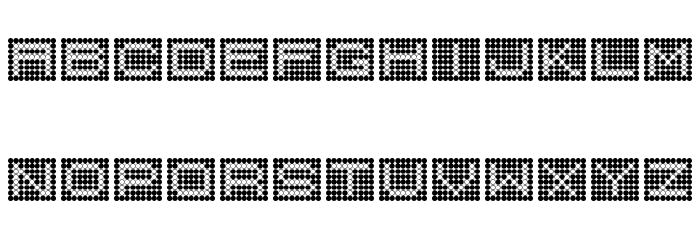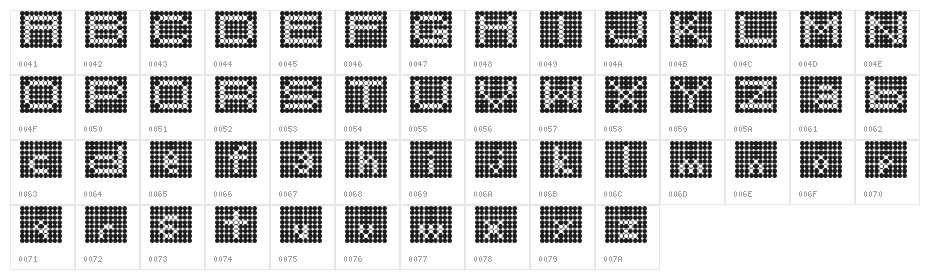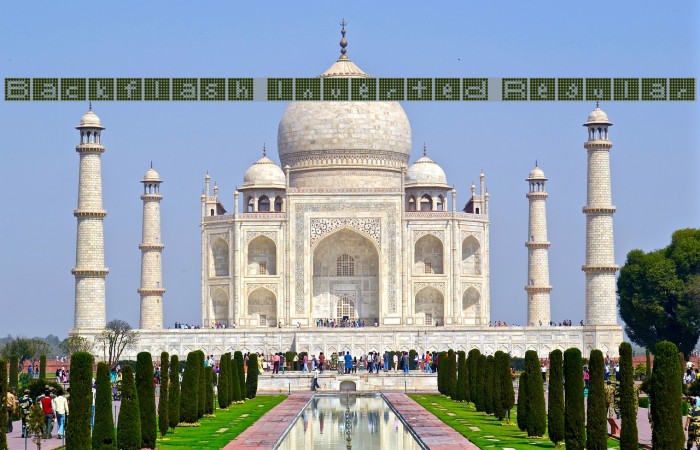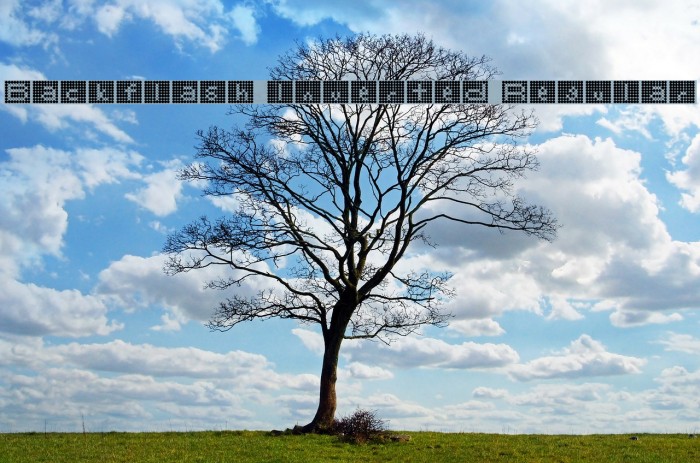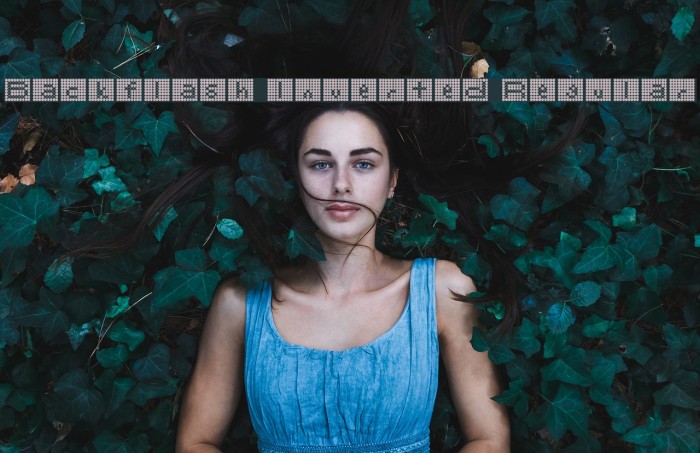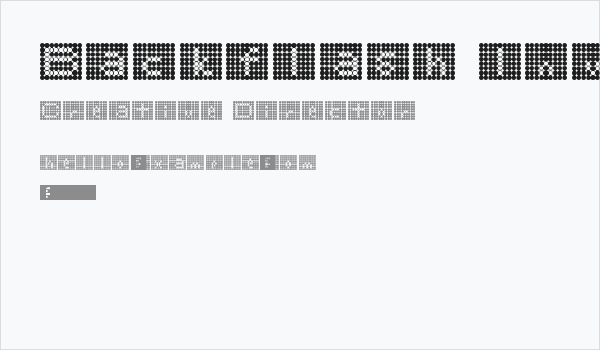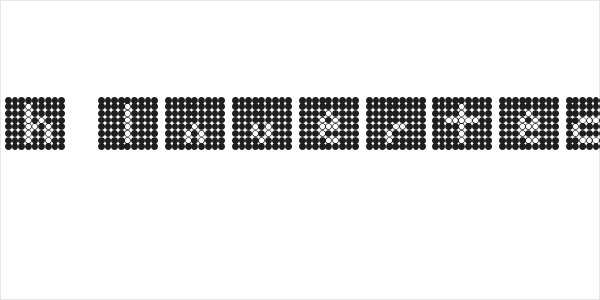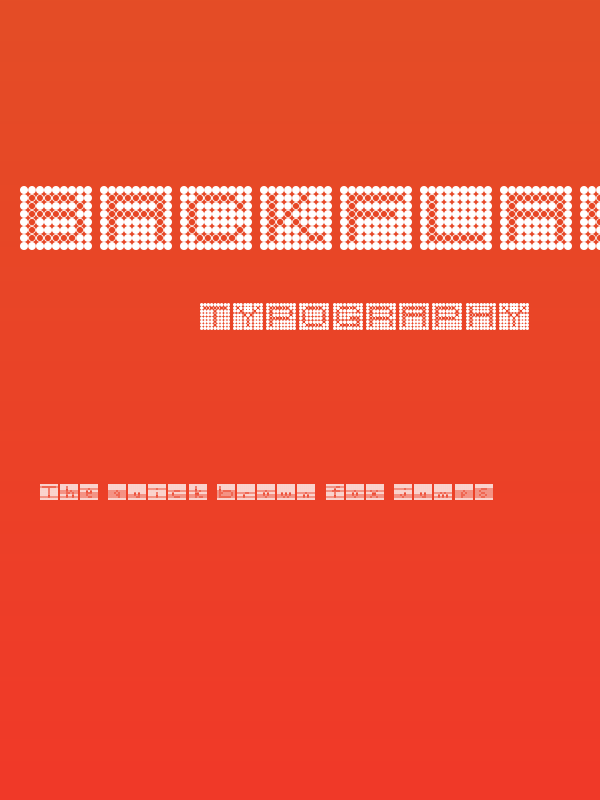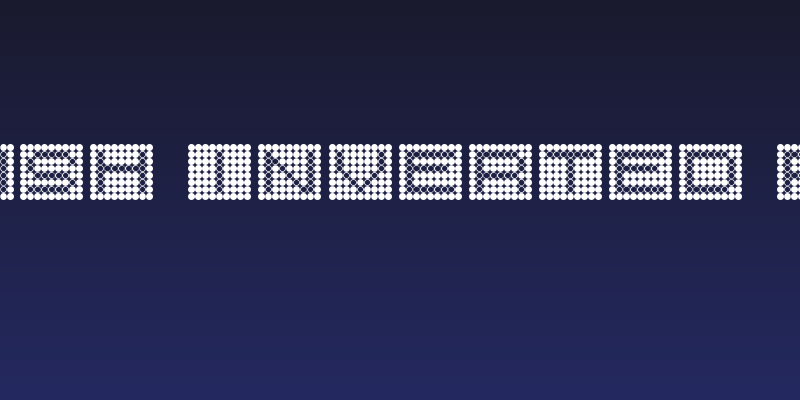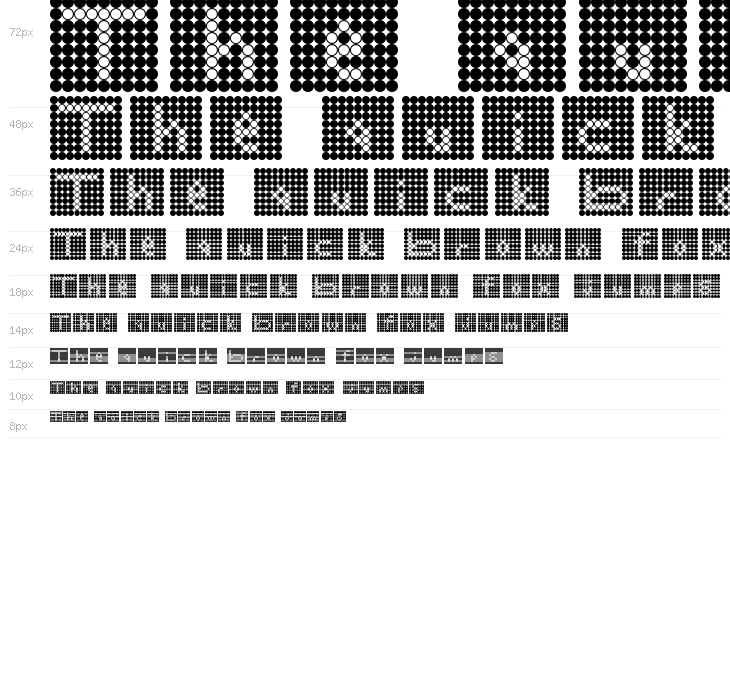
Backflash Inverted Regular Font
Backflash Inverted Regular Description
This font features a unique design where each character is composed of a grid of small dots, creating a pixelated effect. The letters are enclosed within square frames, giving them a structured and uniform appearance. The style is reminiscent of digital or retro aesthetics, often seen in early computer graphics or LED displays. The consistent use of dots and the square framing provide a cohesive look across all characters, making it suitable for projects that require a distinct and eye-catching typeface.
| Proposed Projects | Ideal for digital art projects, retro-themed designs, video game graphics, and any creative work that seeks a vintage digital look. |